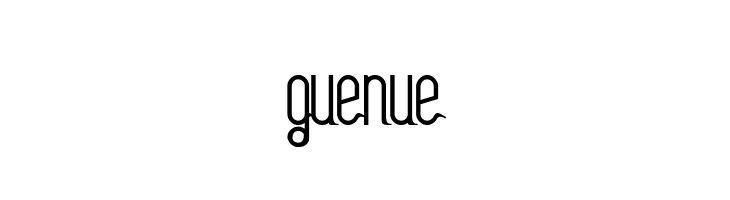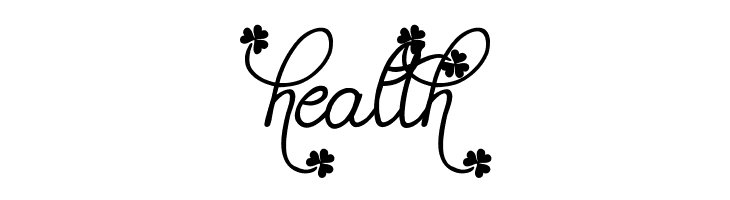
A whimsical script font with clover motifs and elegant flourishes.
A bold, brushstroke font with a dynamic and artistic style.
A bold, brush-style font with an energetic and artistic feel.
A bold, playful serif font with a vintage flair.
A classic serif font with elegant, pointed serifs and moderate stroke contrast.
A bold, textured font with a brush-like, dynamic appearance.
A modern, narrow font with elongated characters and a sleek design.
An abstract, chaotic display font with fragmented, artistic letterforms.